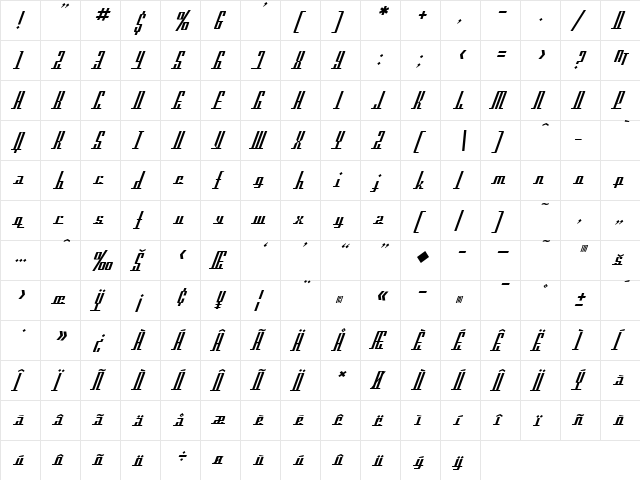
SF Americana Dreams Regular
Design Context for SF Americana Dreams Typeface
SF Americana Dreams is a composed and adaptable typeface that performs quietly and consistently across a wide range of design contexts.